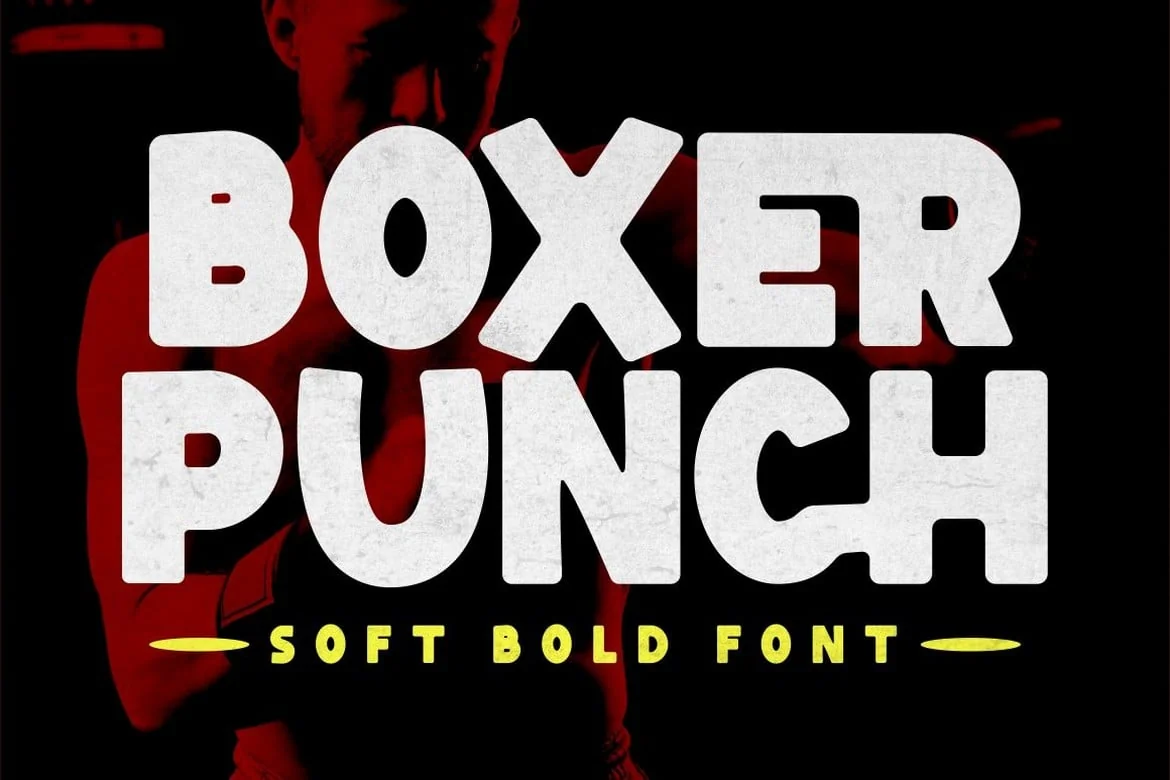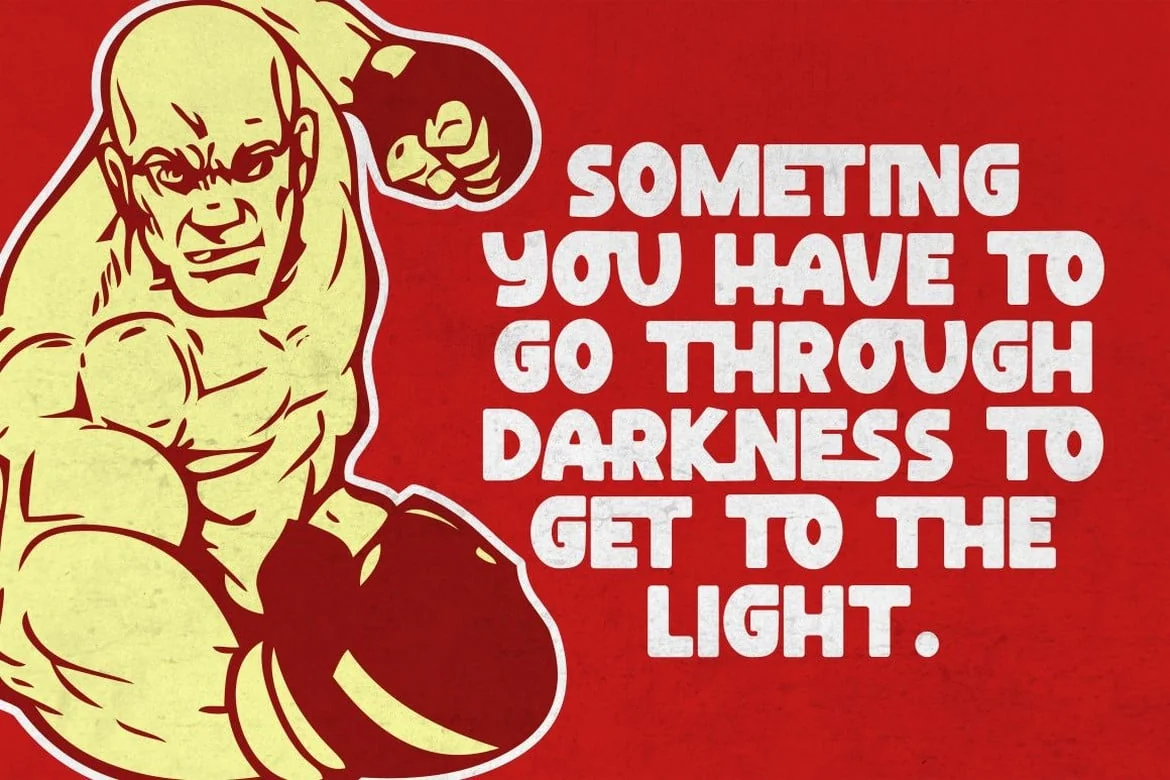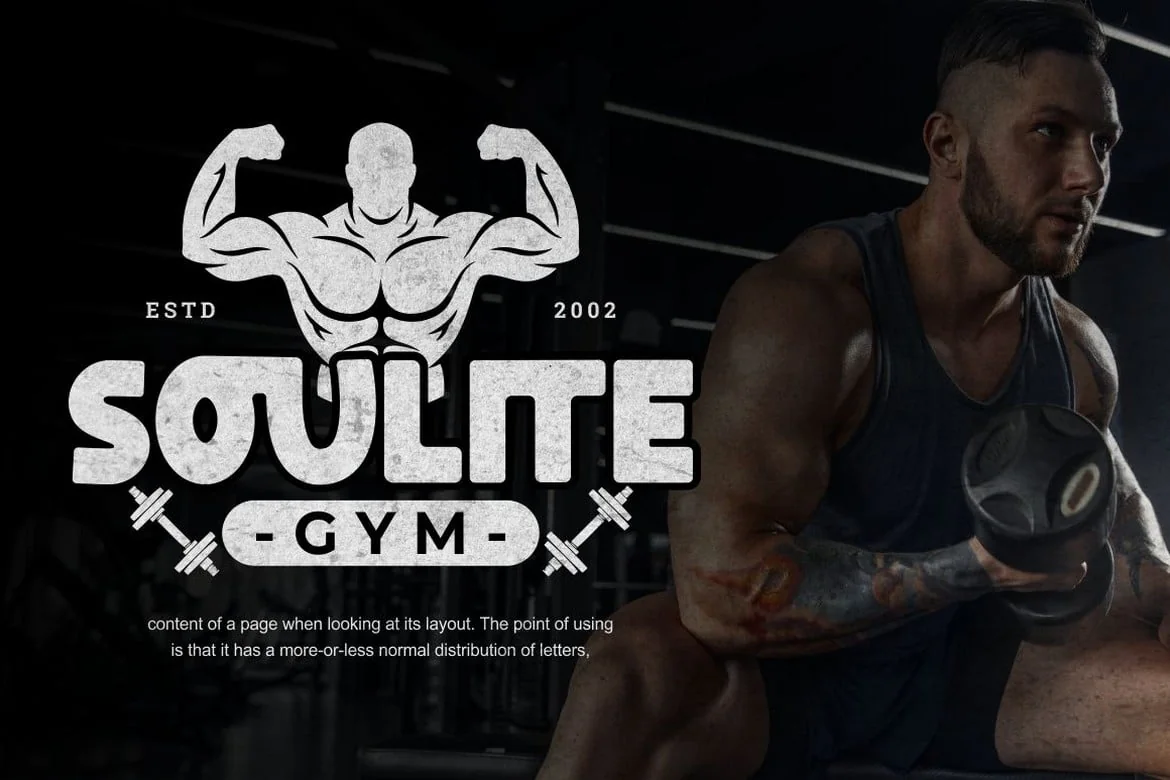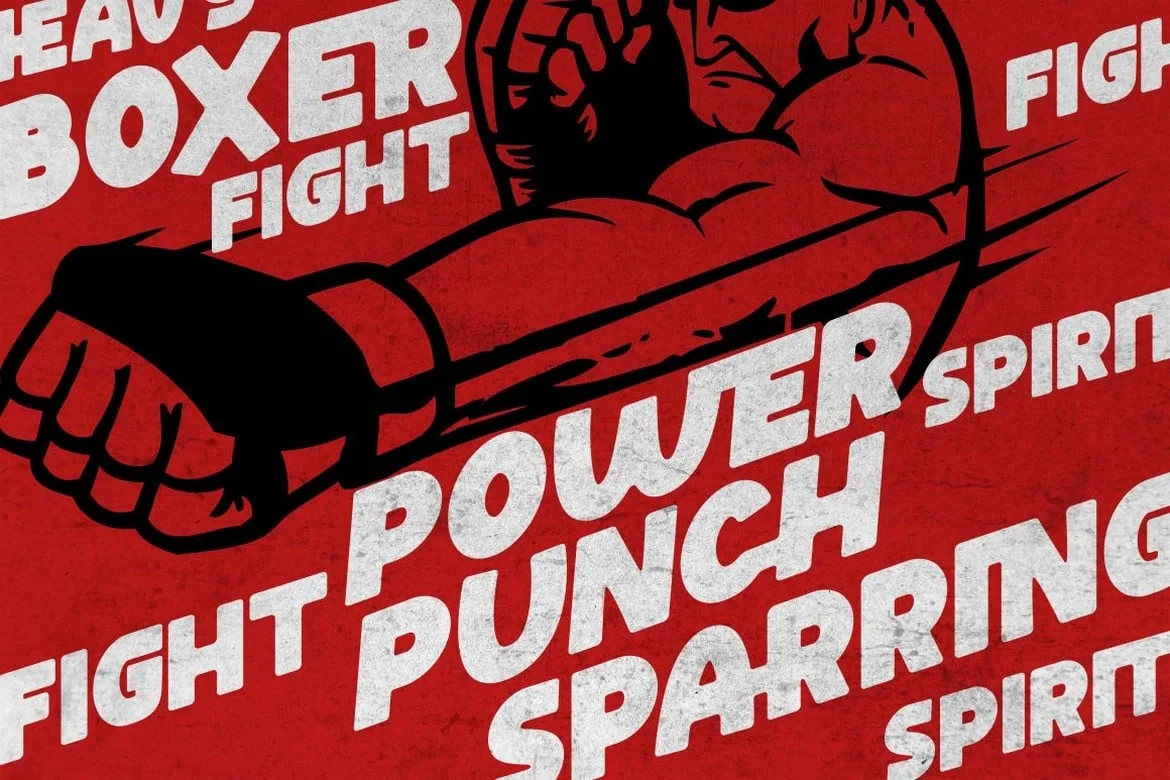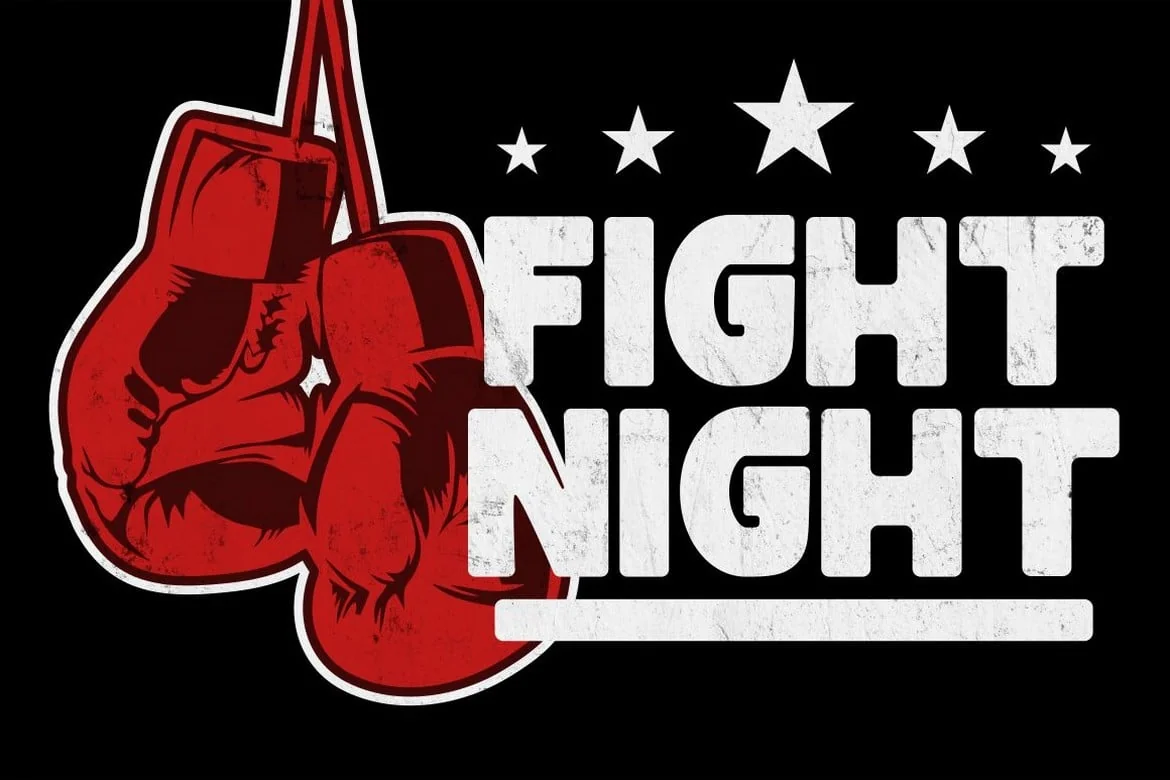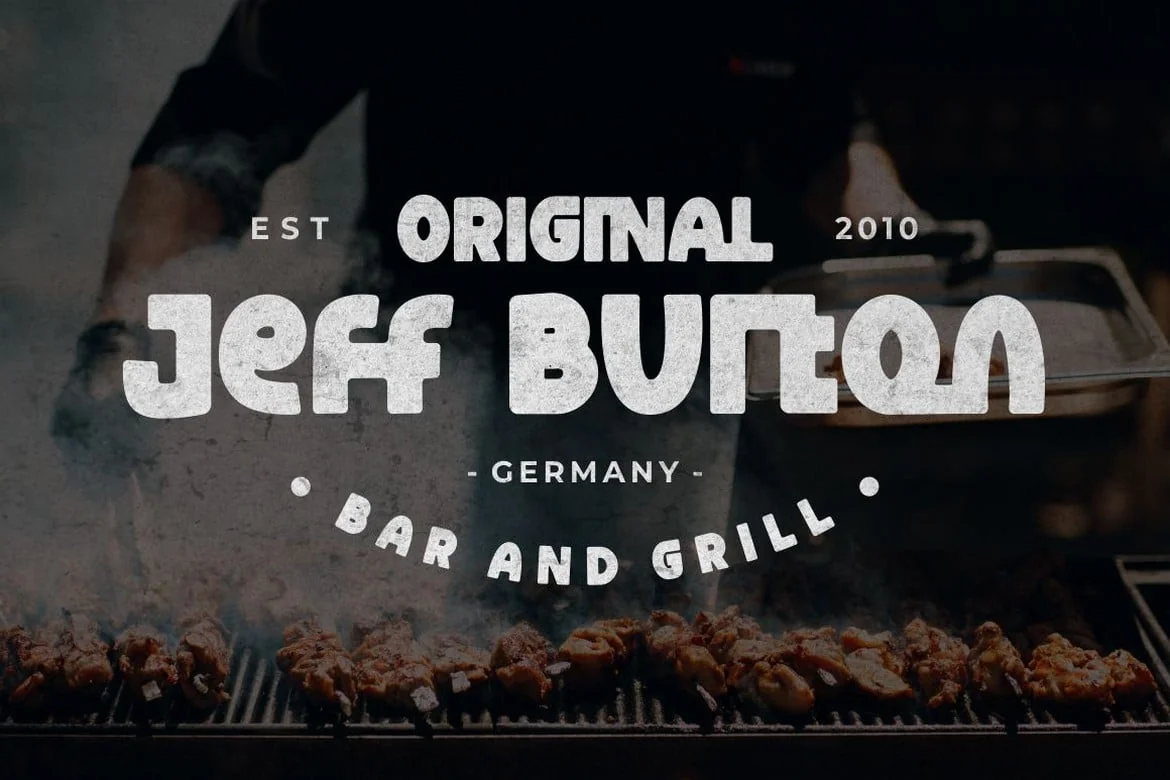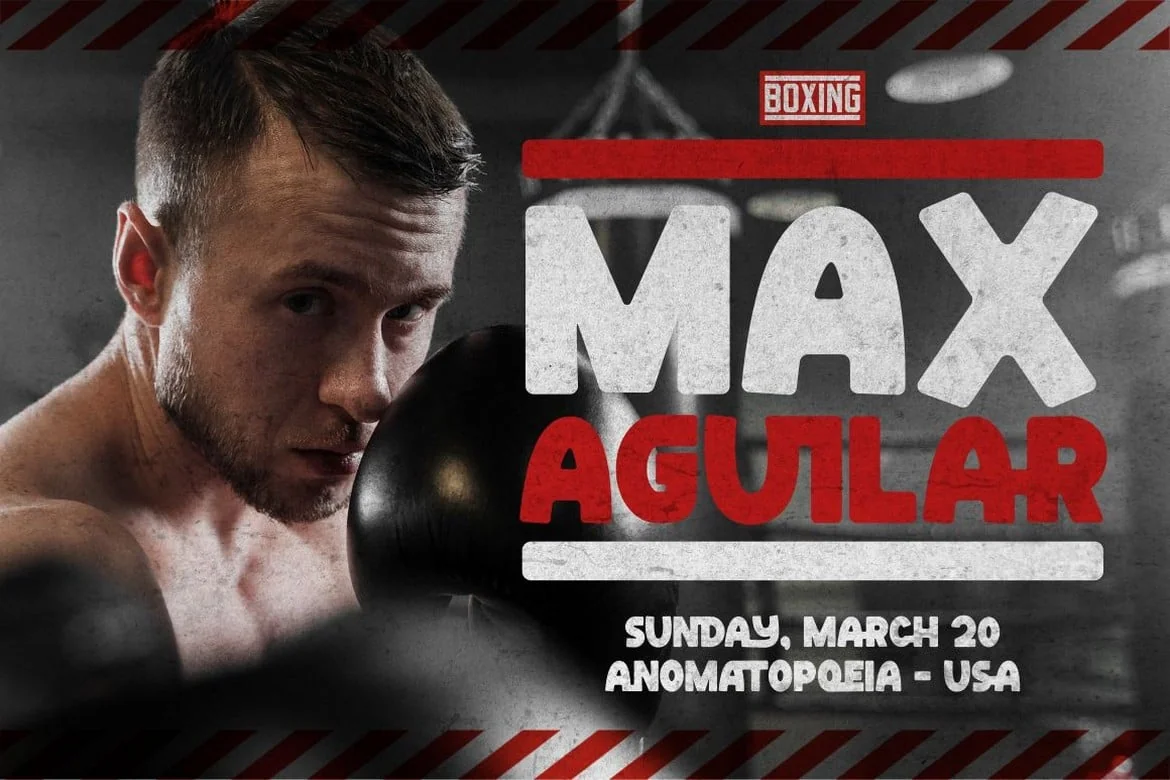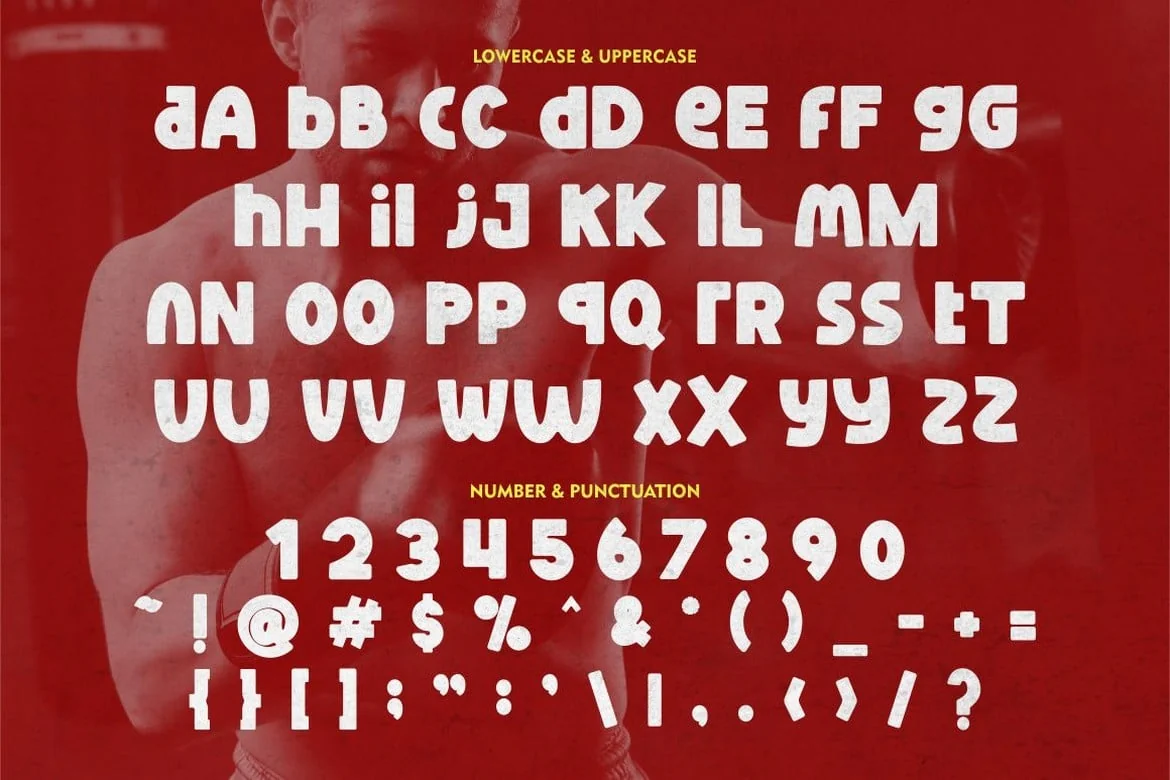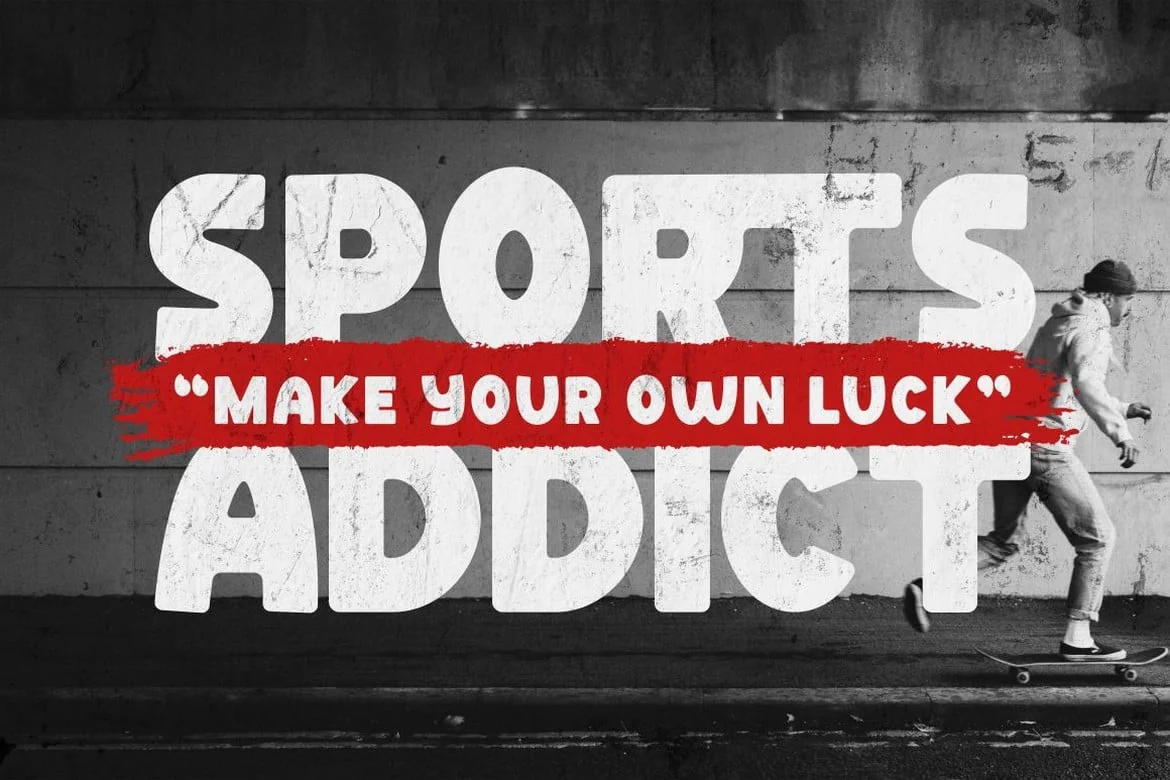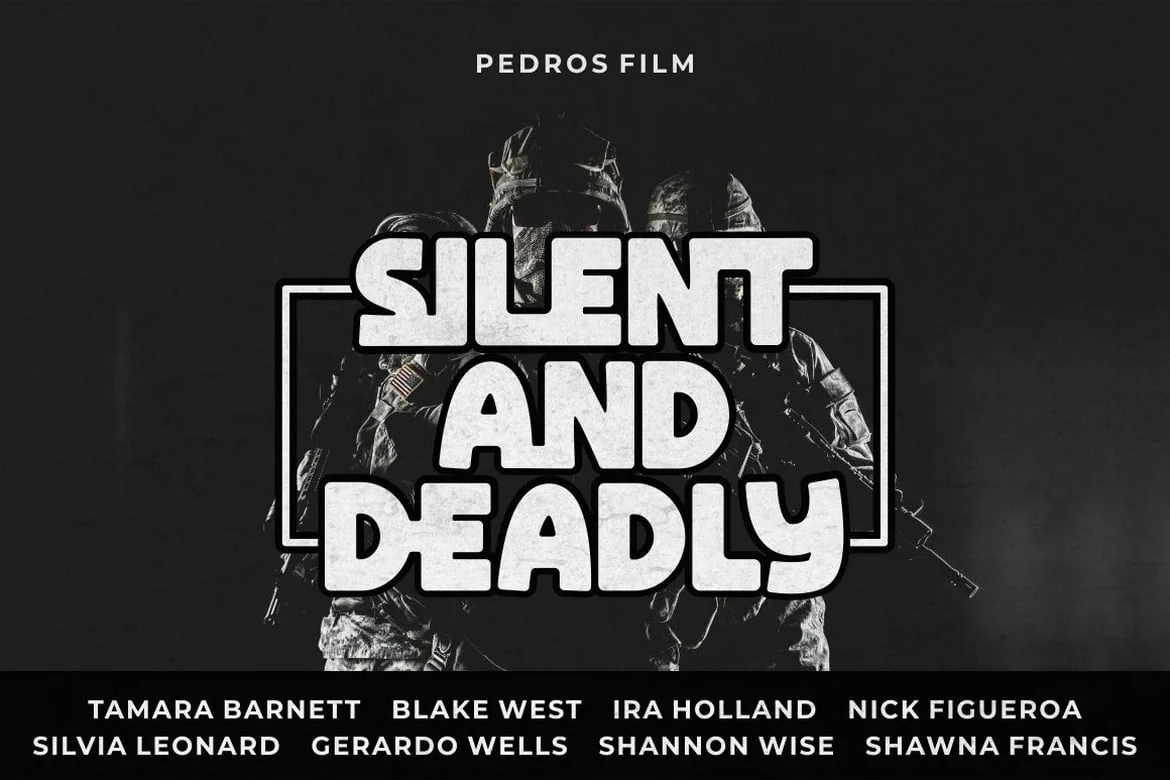
Boxer Punch – Soft Bold Font
Boxer Punch – Soft Bold Font is a stylish and modern font designed to catch the attention of your audience. The font’s unique design combines a soft bold shape with a cute sans serif, making it perfect for creating eye-catching designs.
The idea behind creating Boxer Punch was to incorporate the concept of understated realism into the font. This is evident in the font’s smooth and elegant lines, which make it perfect for a variety of design projects. The font is ideal for those looking to create a professional touch in their designs, while also maintaining a stylish and modern feel.
Boxer Punch is an excellent choice for anyone looking for a font that is versatile and can be used in a variety of different contexts. It is perfect for sports-themed work projects, as well as branding, logo design, album covers, posters, and social media graphics.